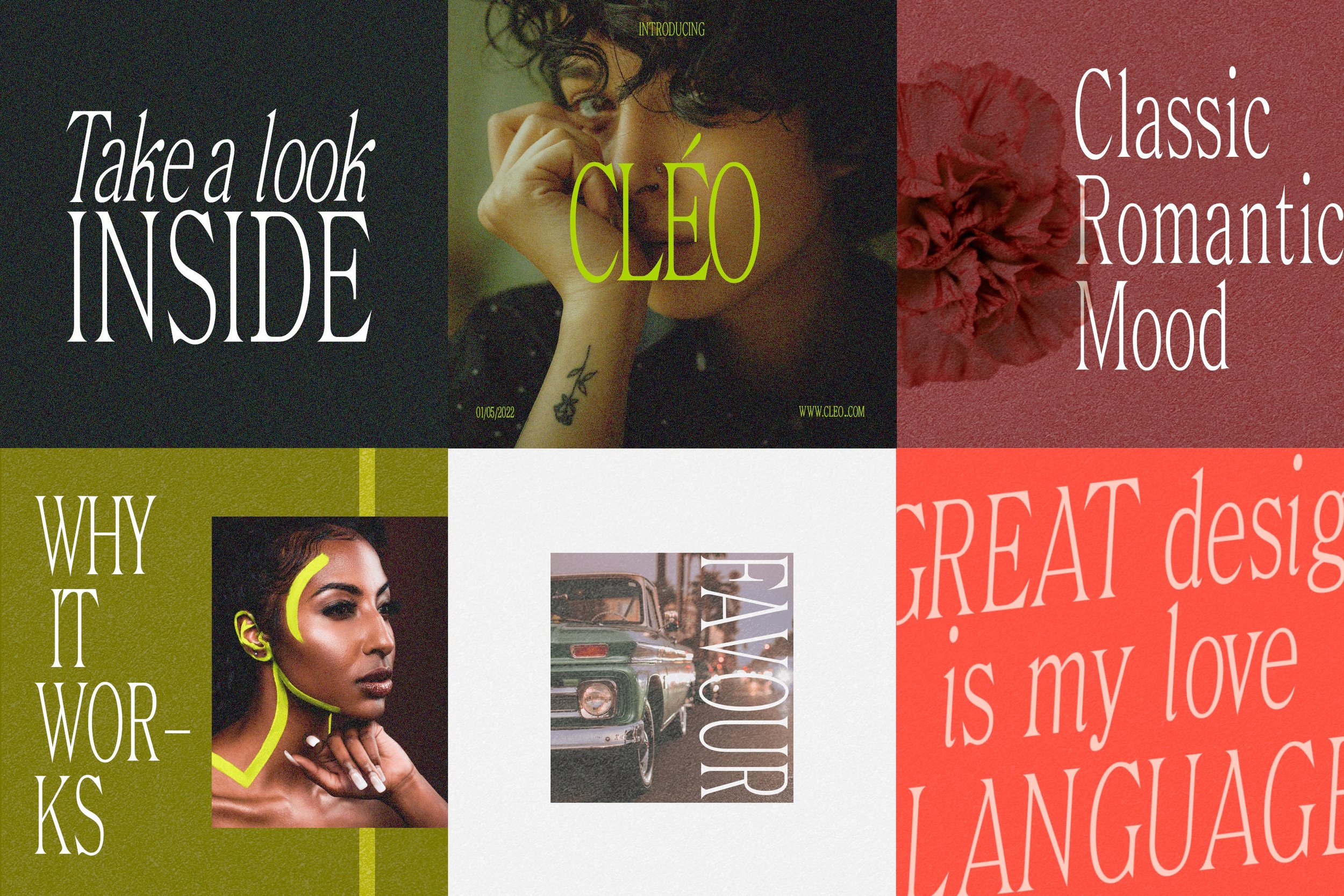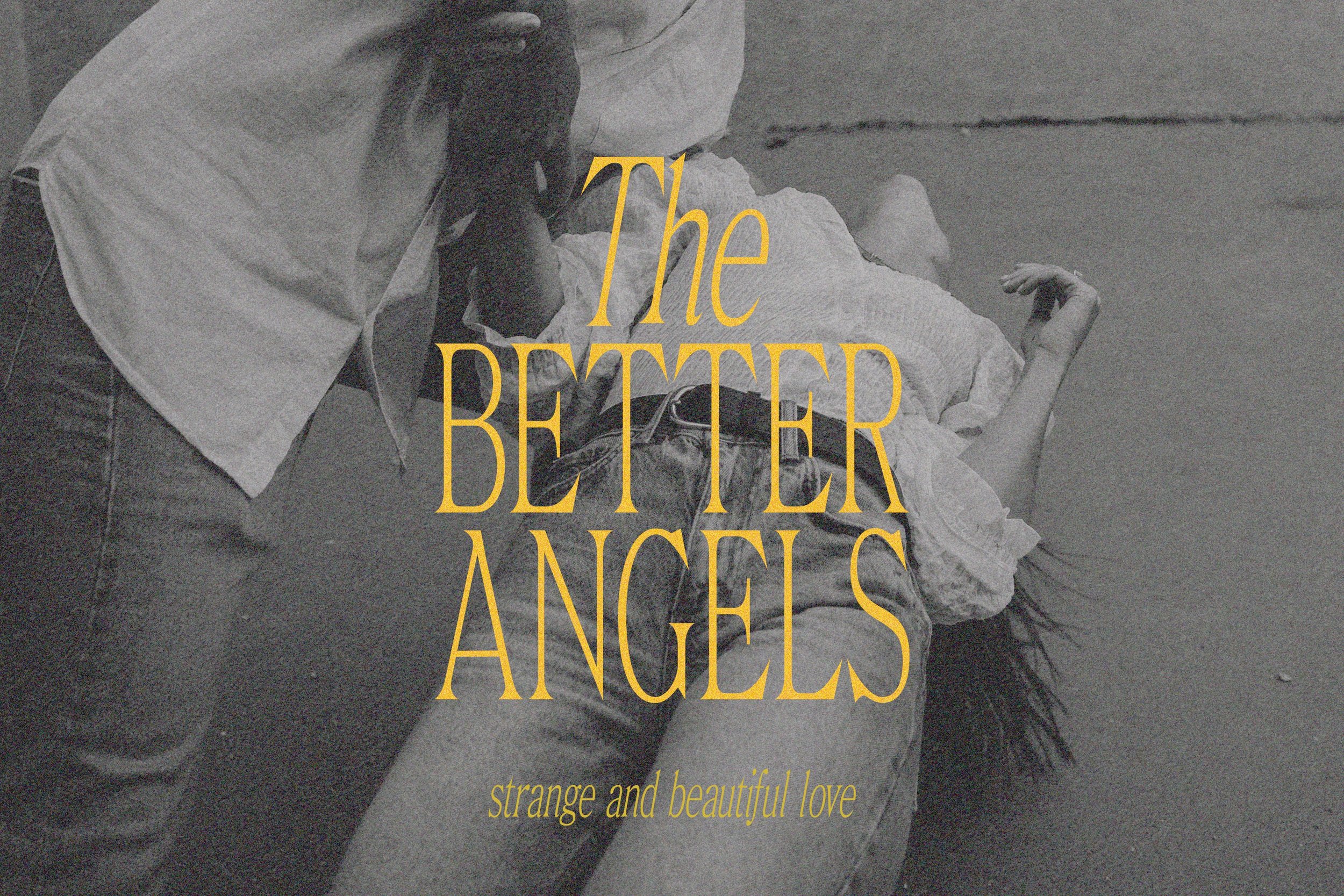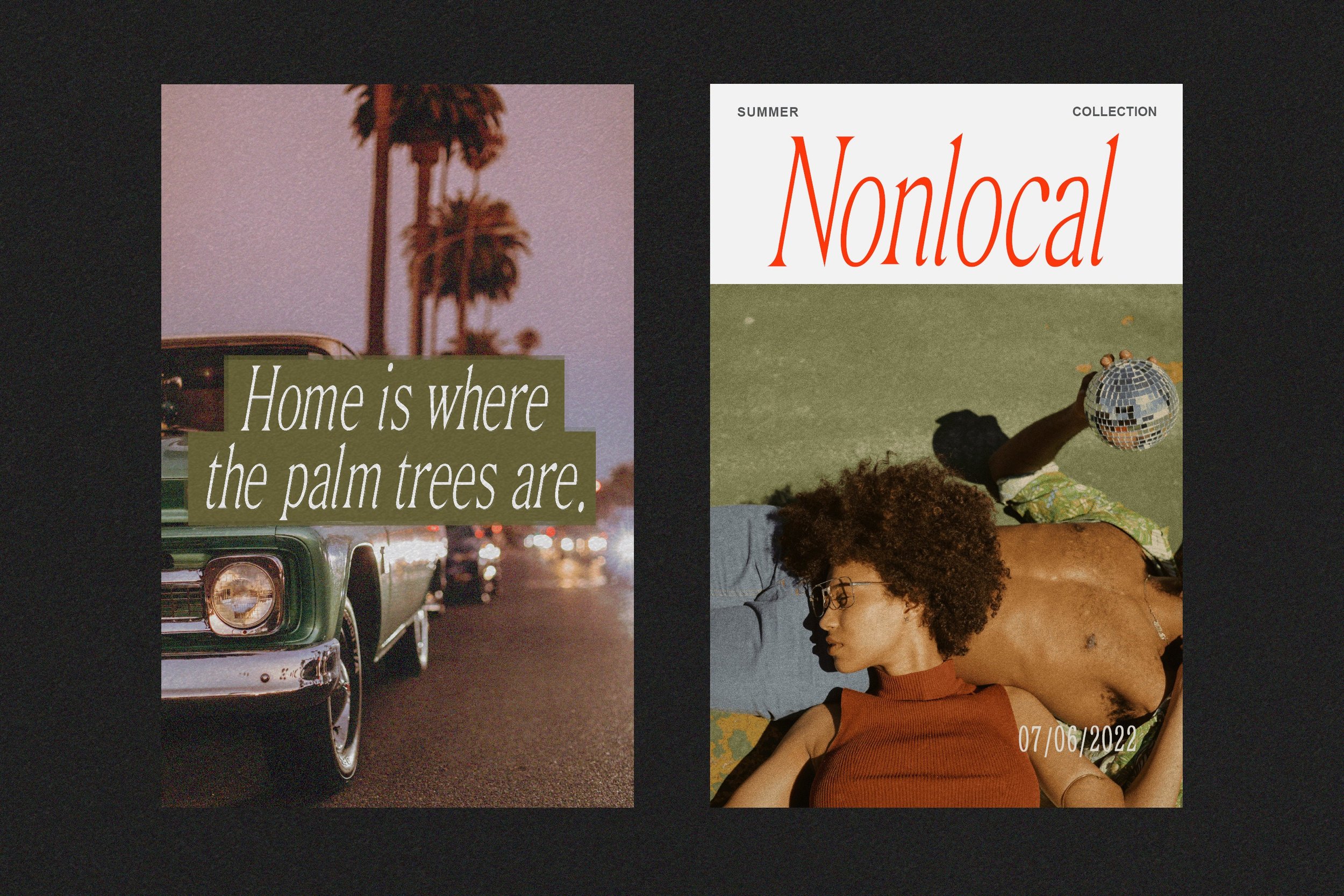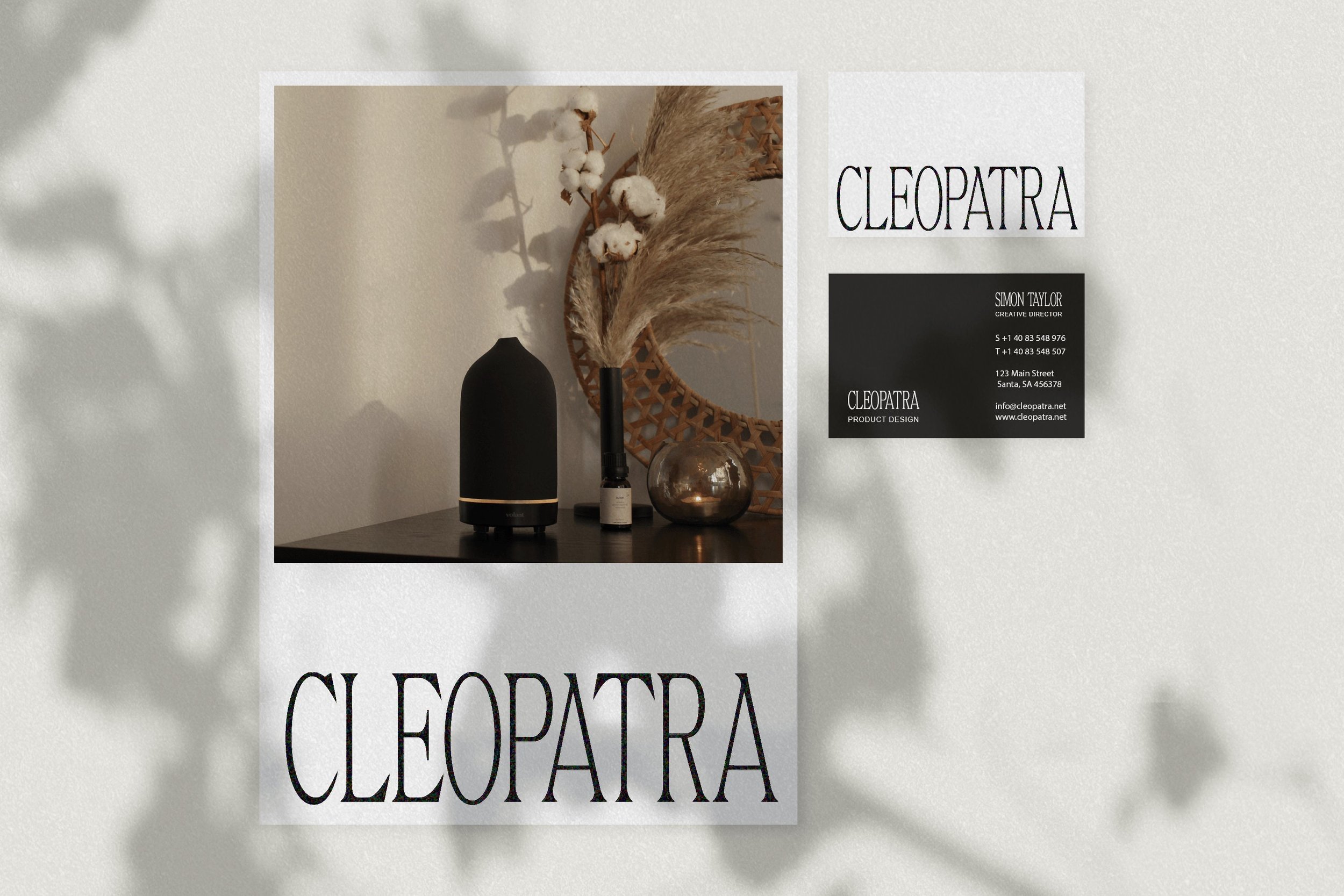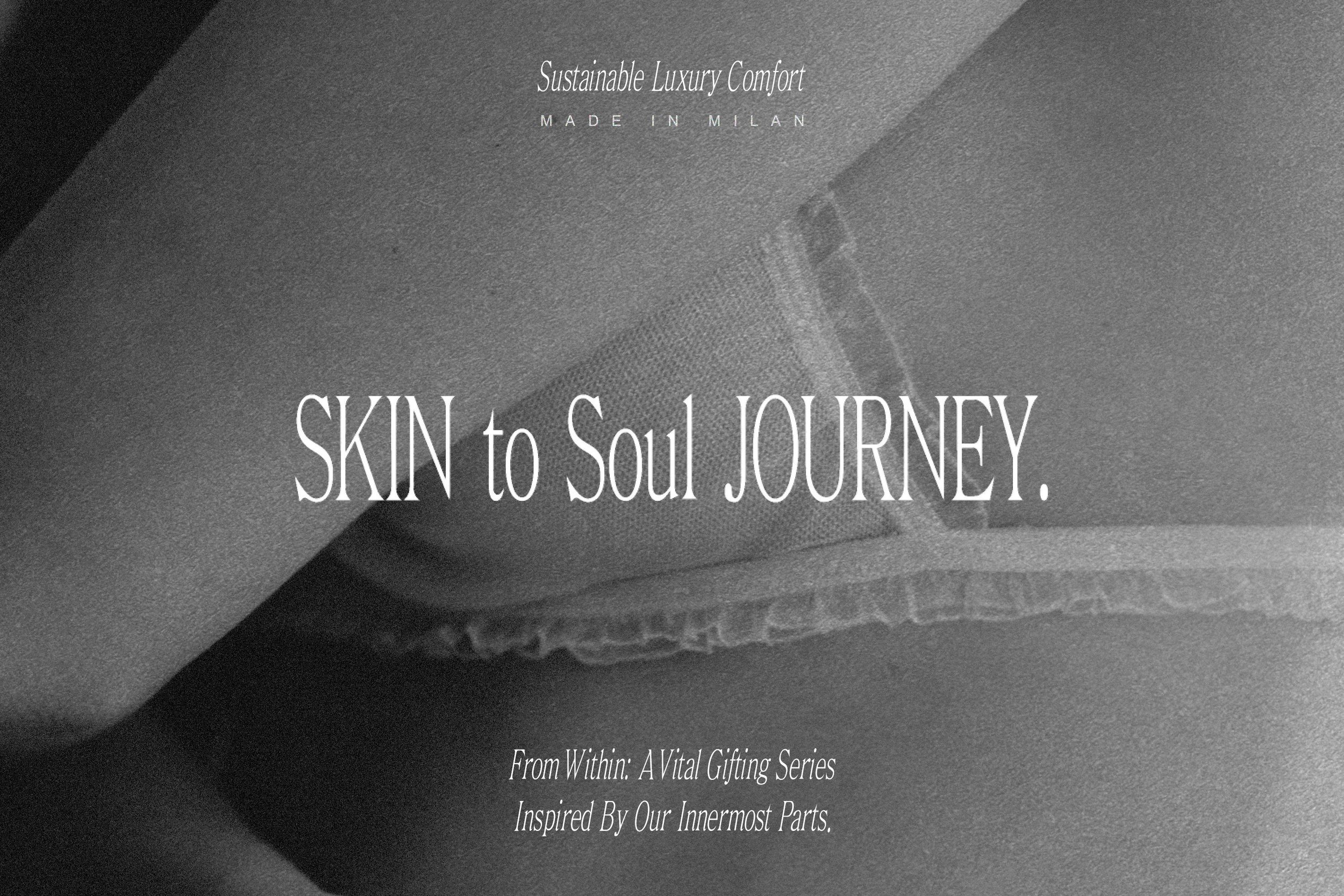
Euphoria - Elegant Serif with Italics Font
Euphoria is timeless, classic, and adorned with sharply cut serifs. This font is quite minimal, and so the italic version of the font marvelously complements its character and gives it a luxurious nostalgic vibe.